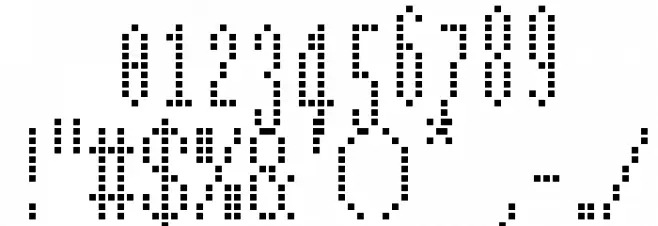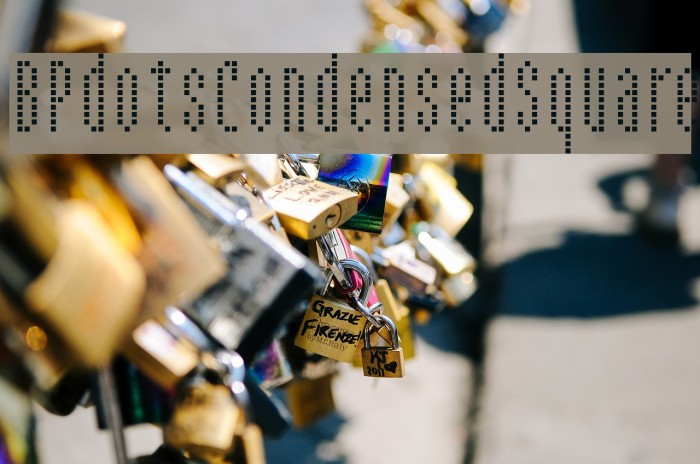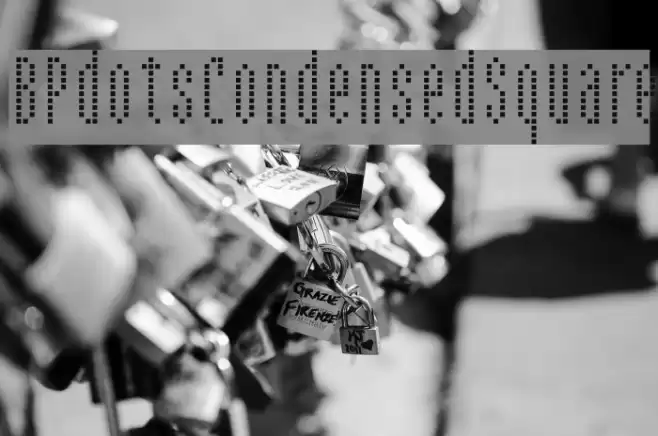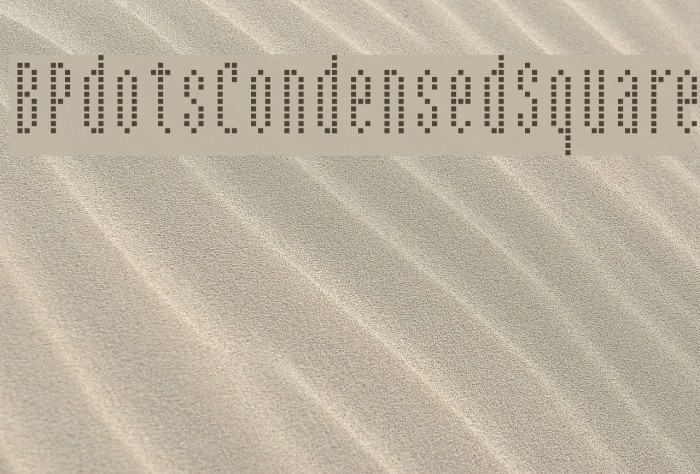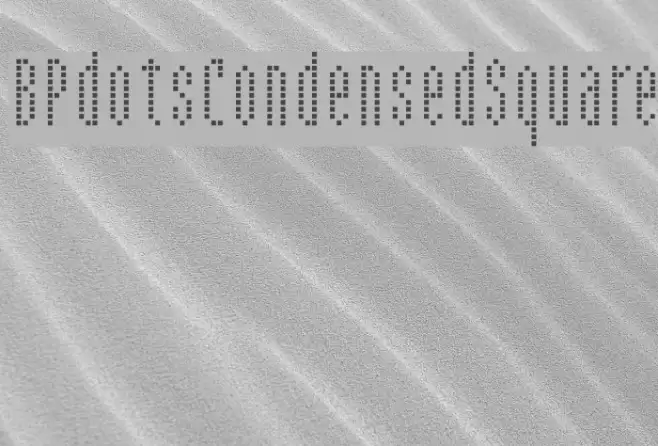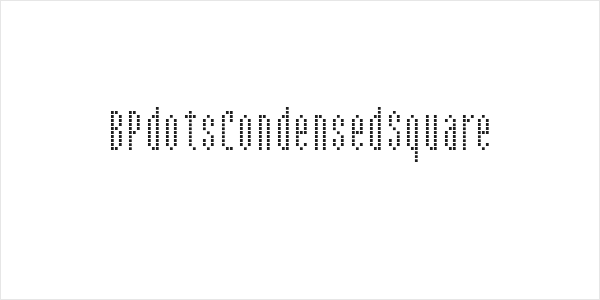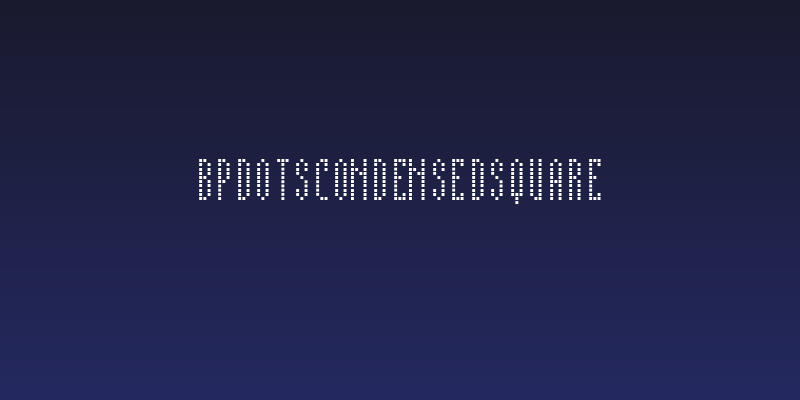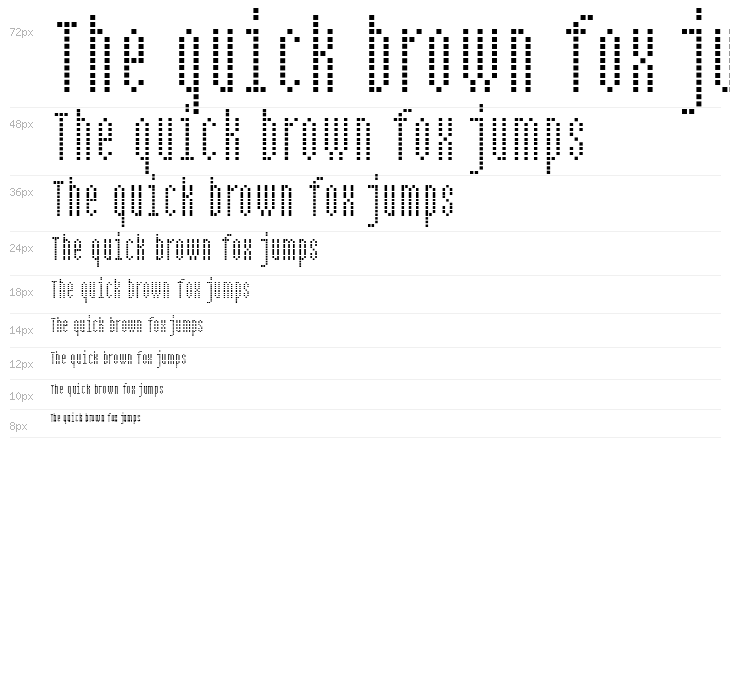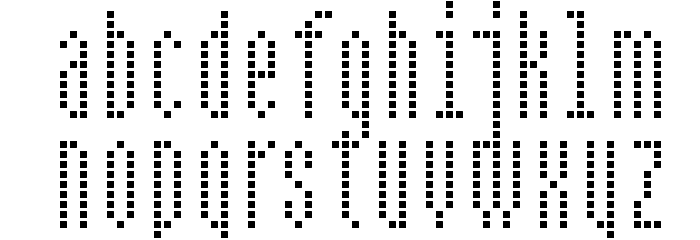
BPdotsCondensedSquare Font
BPdotsCondensedSquare Description
This font features a unique dotted design, where each character is constructed from a series of small, evenly spaced square dots. The overall appearance is geometric and structured, giving it a digital or pixelated feel. The uppercase and lowercase letters maintain a consistent height and width, contributing to a uniform look. Numbers and special characters follow the same dotted pattern, ensuring cohesion across all elements. This style is reminiscent of early digital displays, making it ideal for projects that require a retro or tech-inspired aesthetic.
| Use Case | Headlines, Logos, Digital displays |
| Proposed Projects | Ideal for digital art, retro-themed designs, tech branding, and display purposes. |